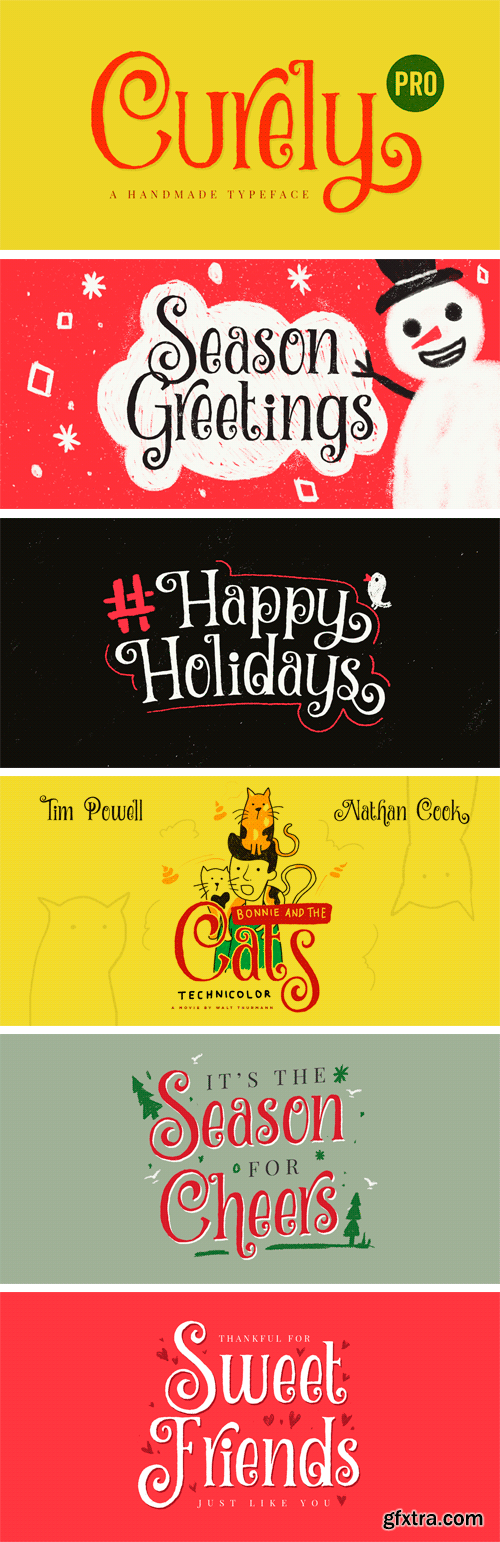
Please welcome, Curely Pro. A Versatile casual handmade decorative lettering typeface. Still inspired from the girly things and cuteness overload in every letters. Perfectly fit for your cute, sweet, lovely, and casual branding or logo project. Or any design stuff that need a lovely cute touch on it, let the Curely Pro smooch it all the way baby!